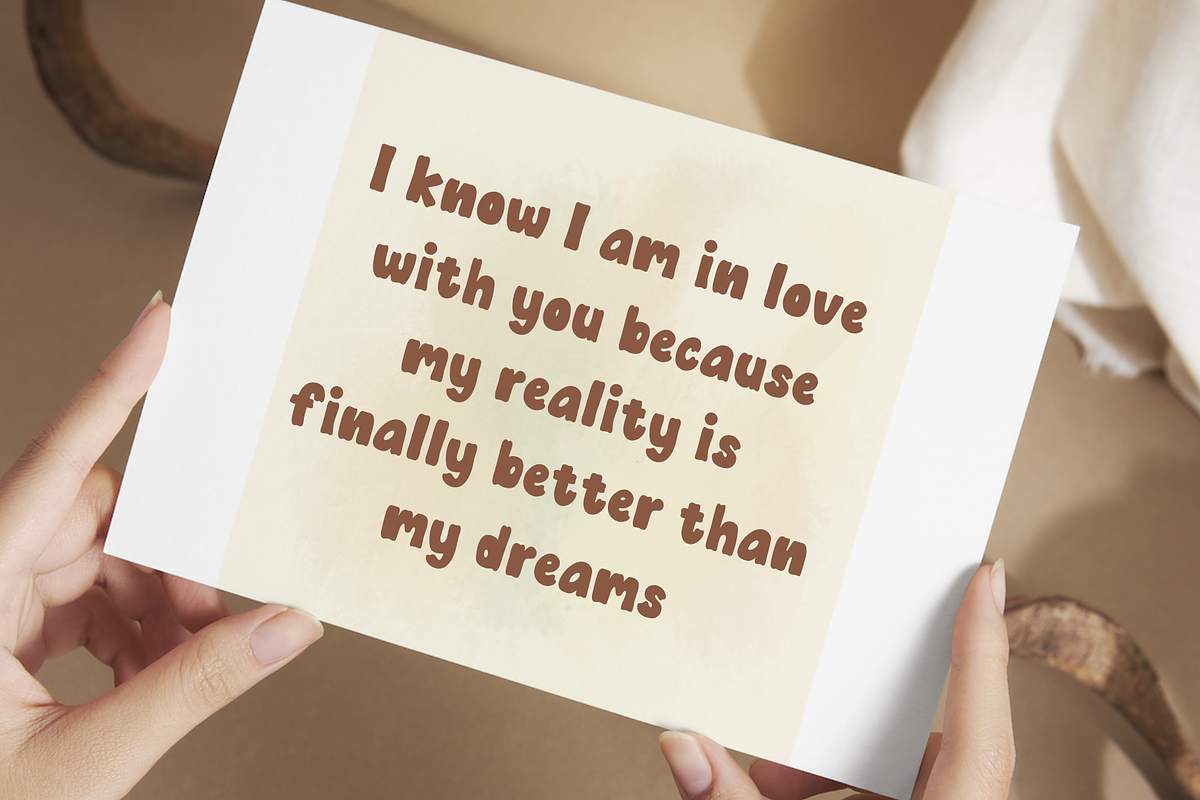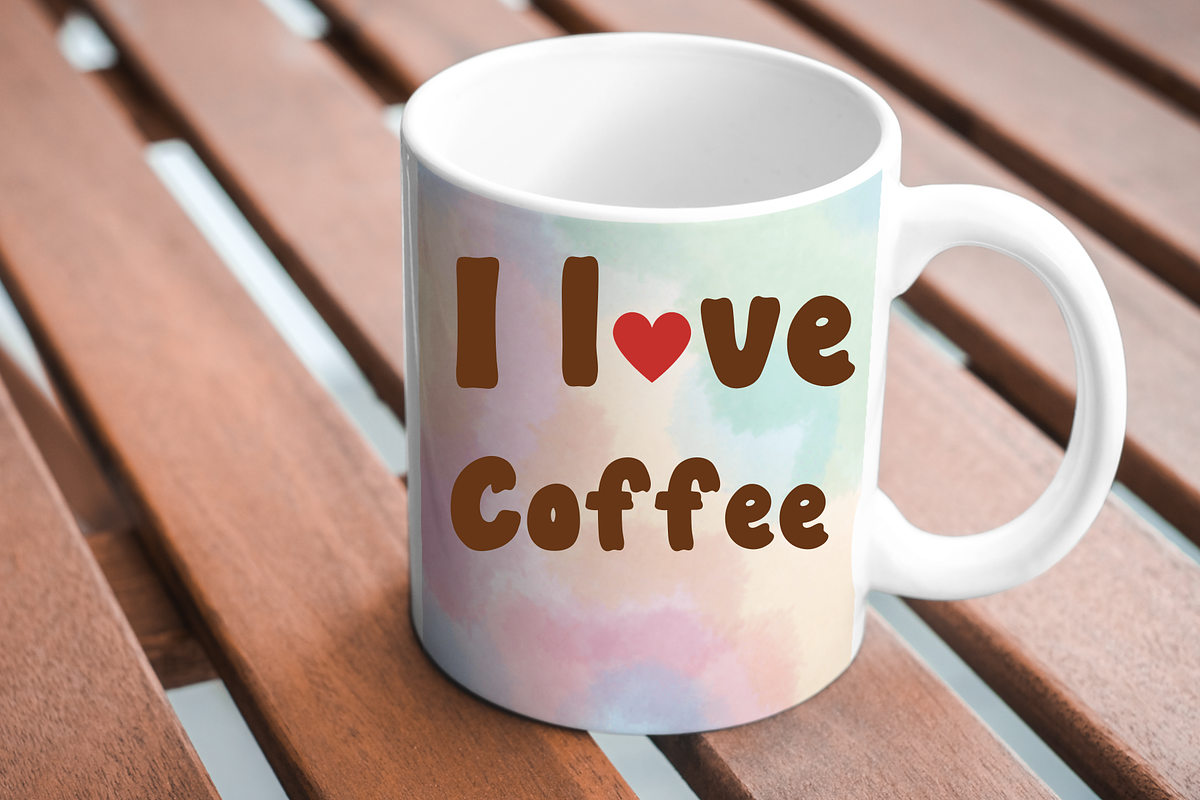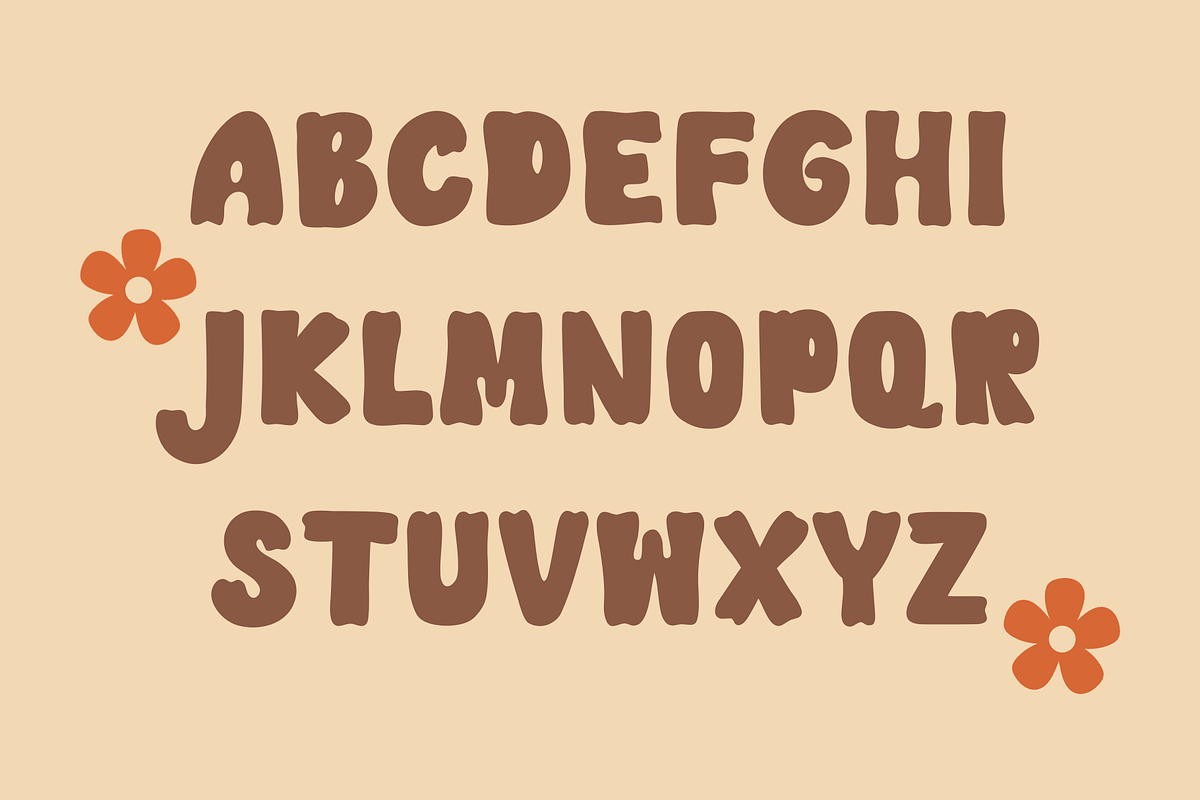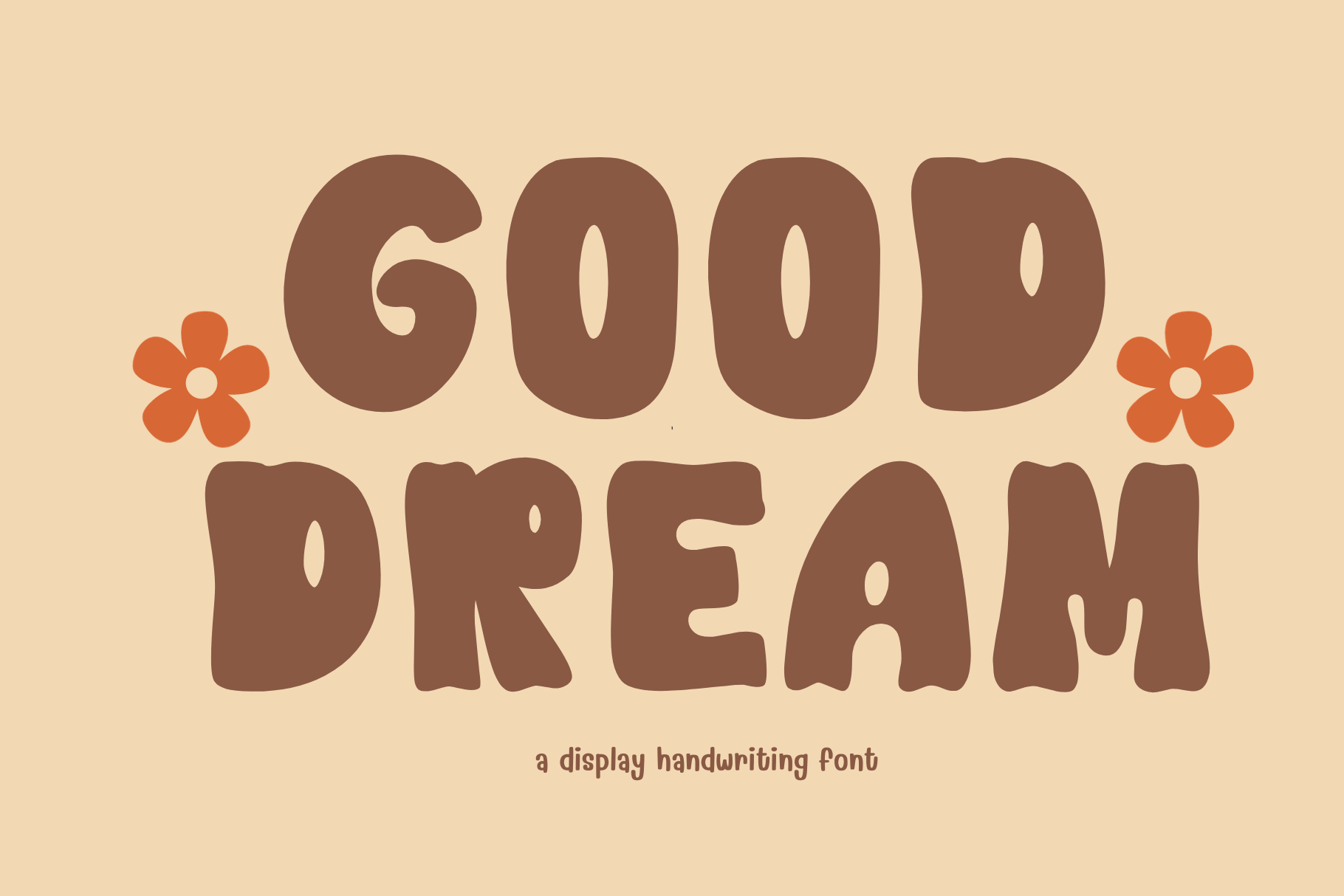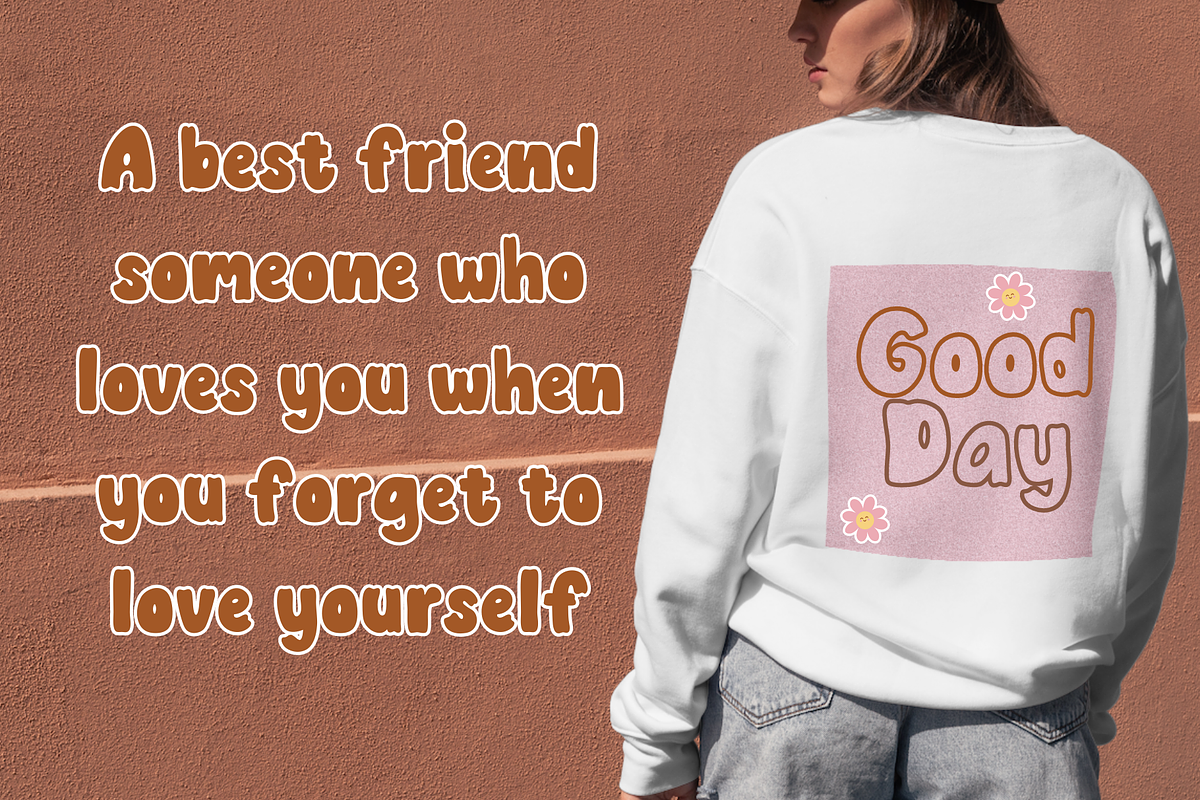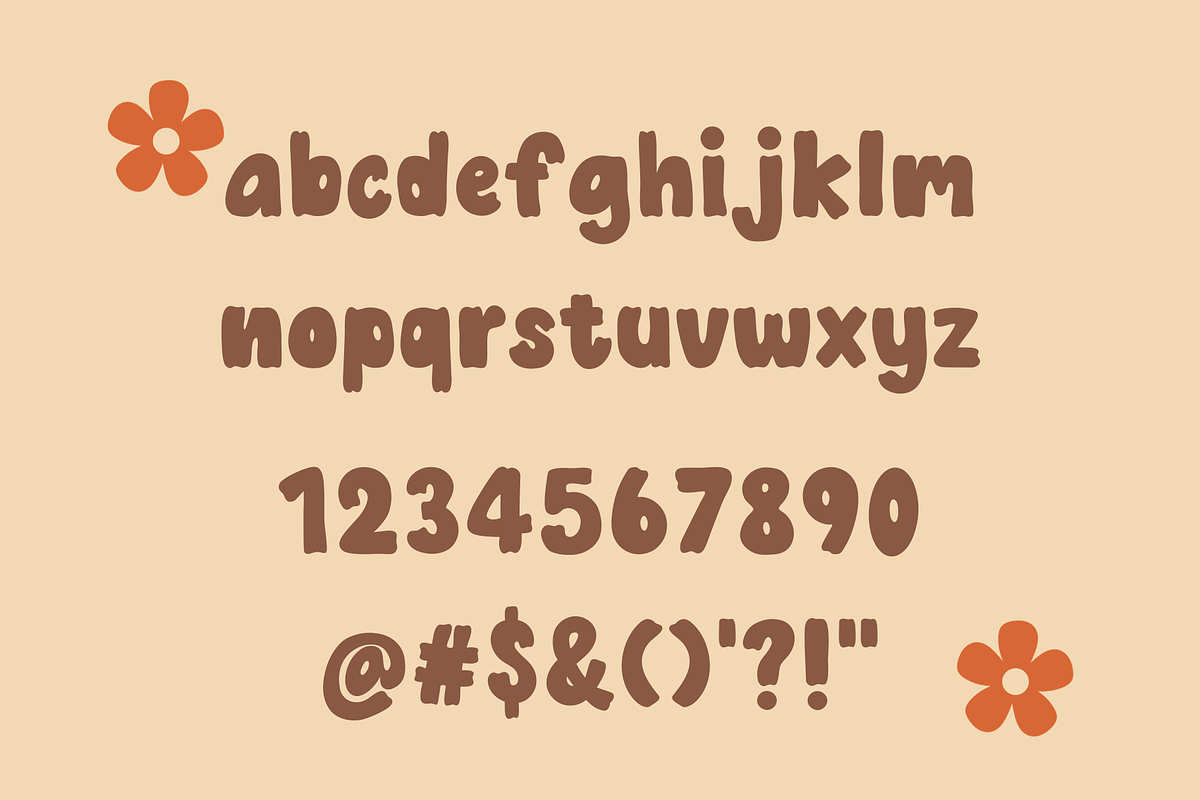
Good dream font
Good dream display handwriting font An adorable decorative font that hides sweetness and charm, making your design work captivating and charming. The curved edges of the letters add an extra touch of loveliness.